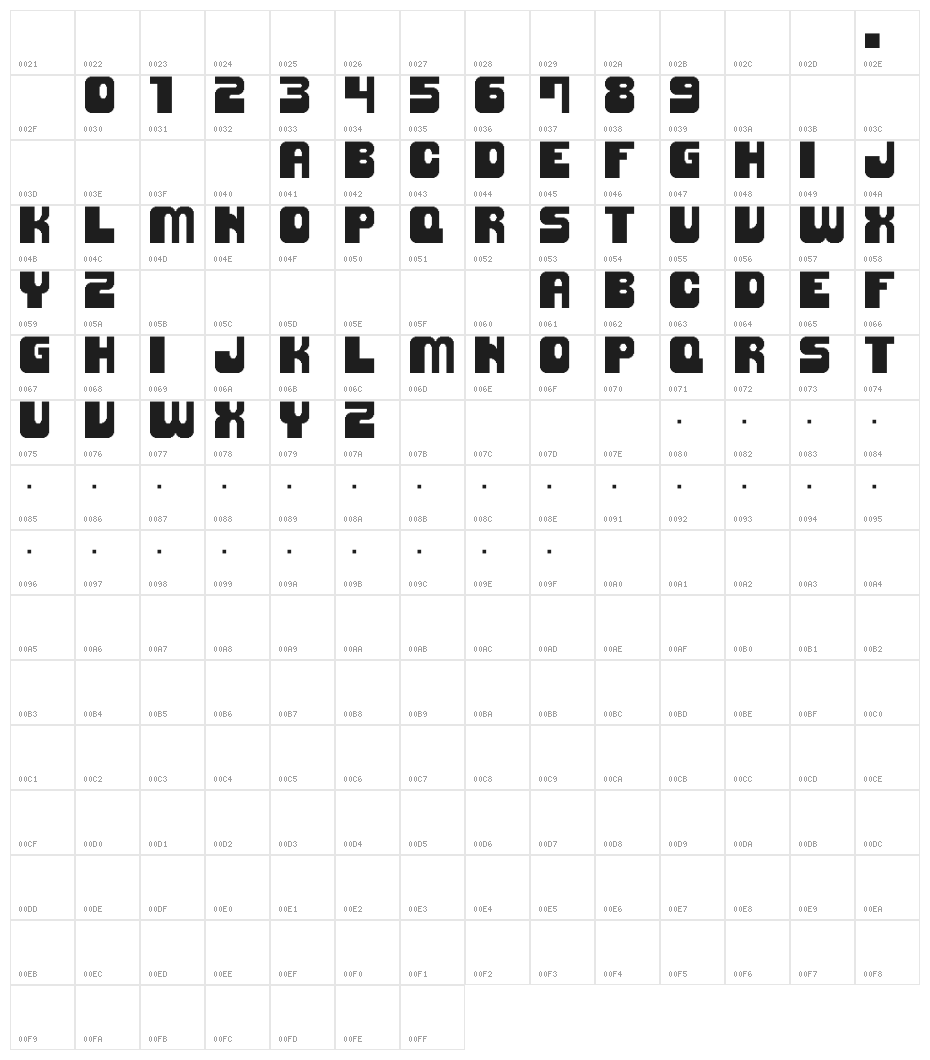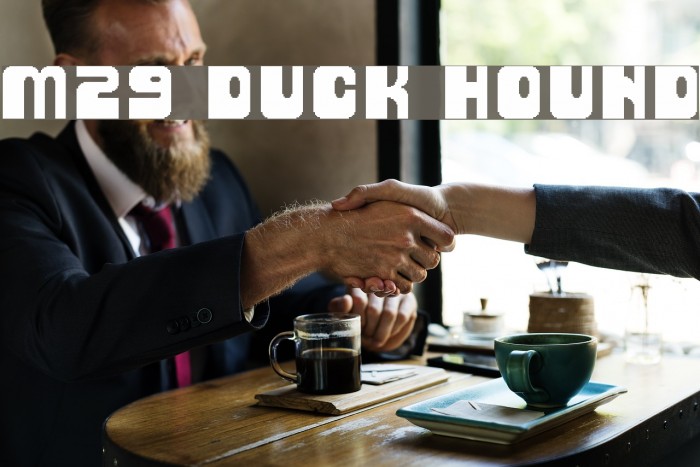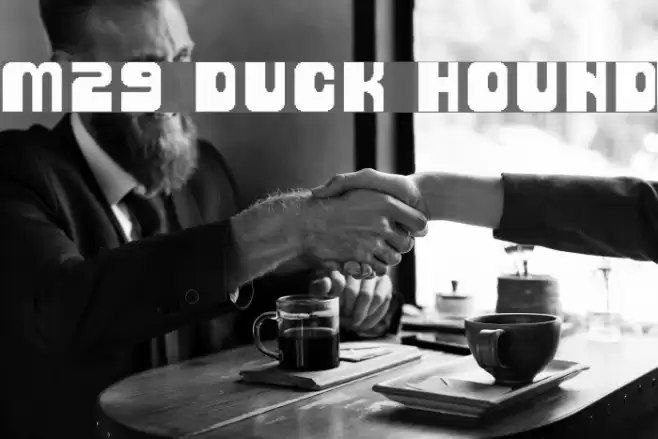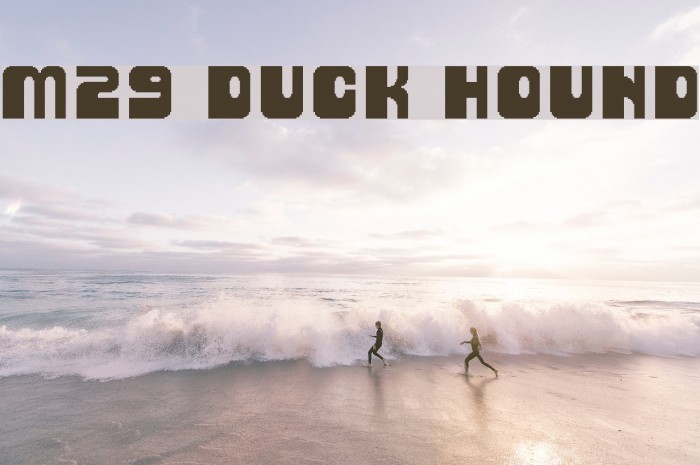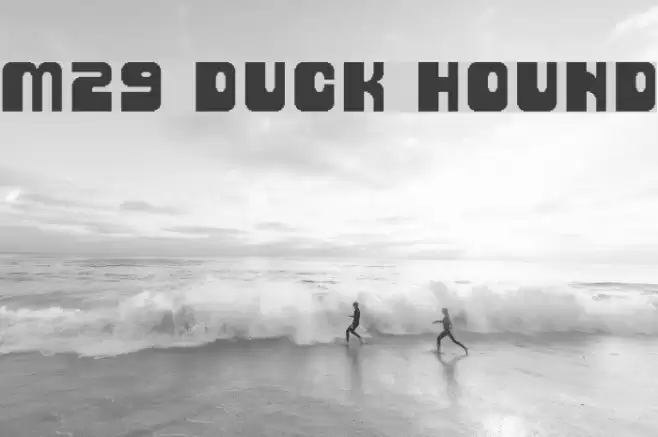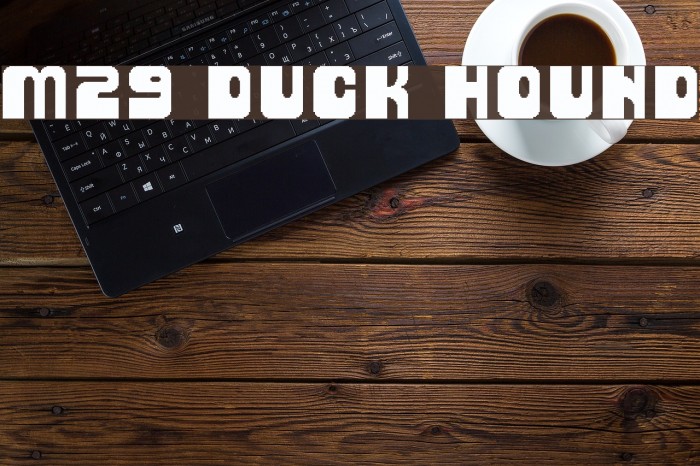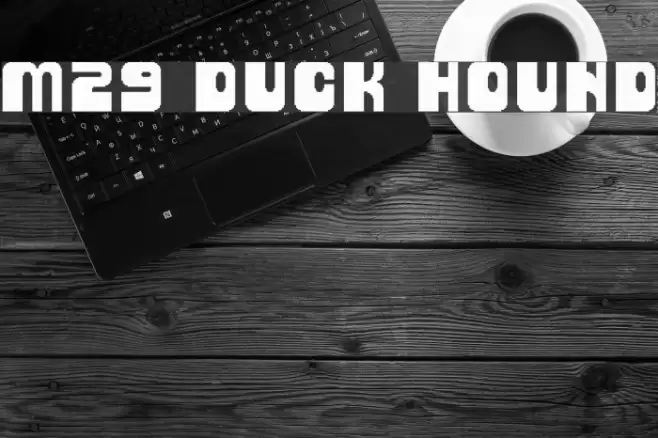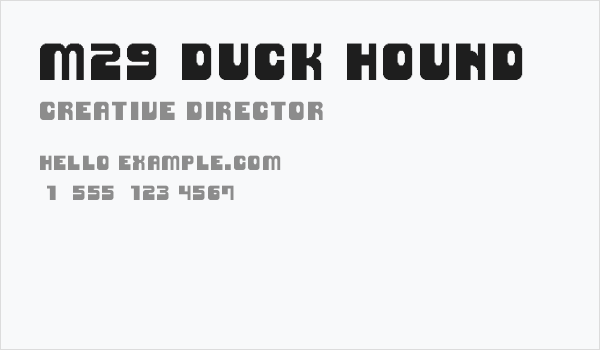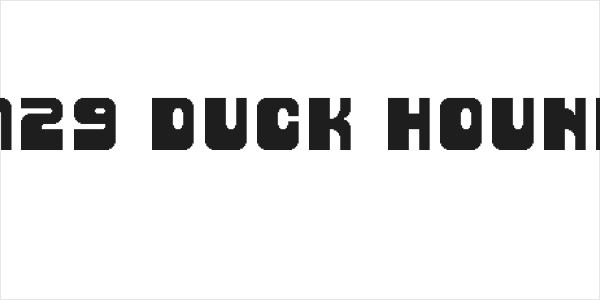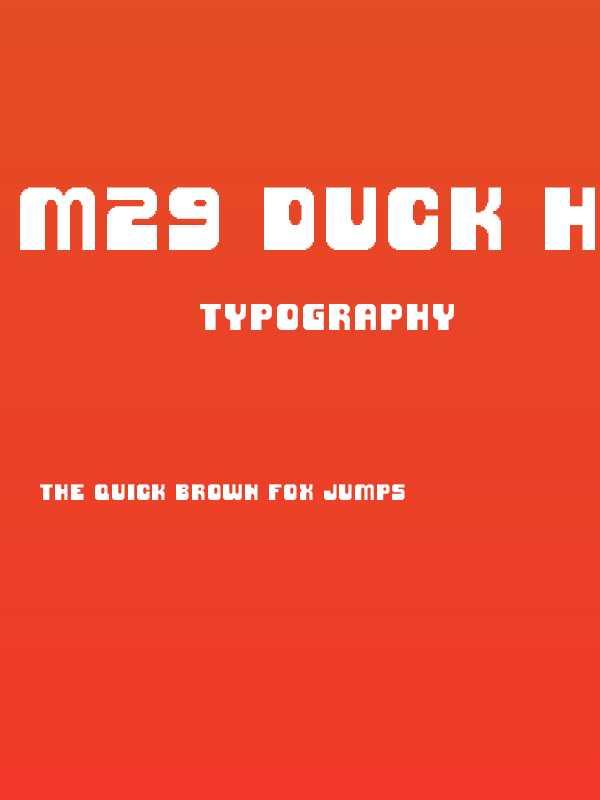
M29_DUCK HOUND Font
M29_DUCK HOUND Description
This font features a bold and geometric design with a strong presence. The characters are blocky and uniform, creating a sense of stability and strength. The uppercase letters are particularly striking, with a consistent height and width that give the font a monospaced appearance. The numbers follow the same bold style, ensuring readability and impact. The font's design is straightforward, with minimal curves and a focus on straight lines and right angles, making it ideal for projects that require a modern and assertive look.
Proposed ProjectsIdeal for branding, posters, headlines, and any design requiring a bold statement.